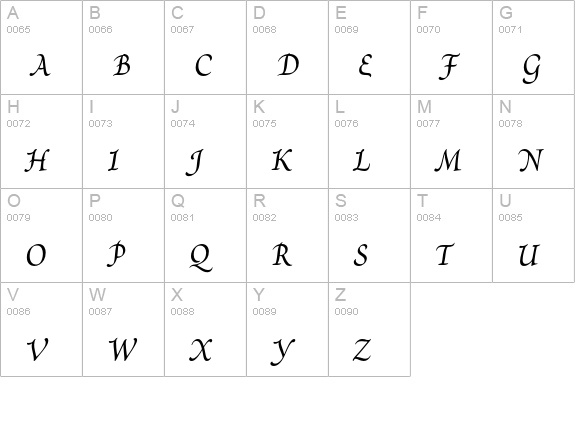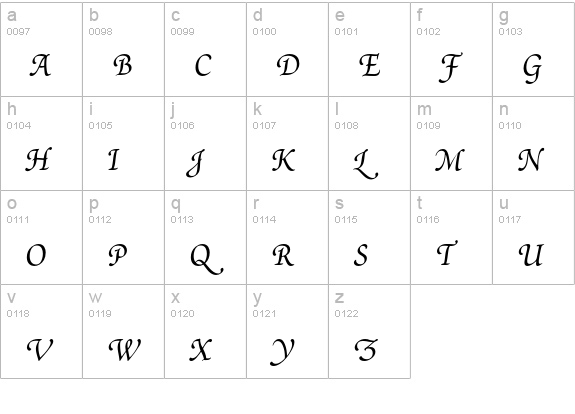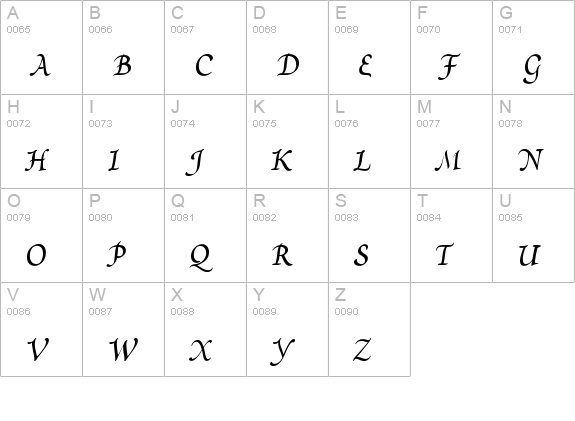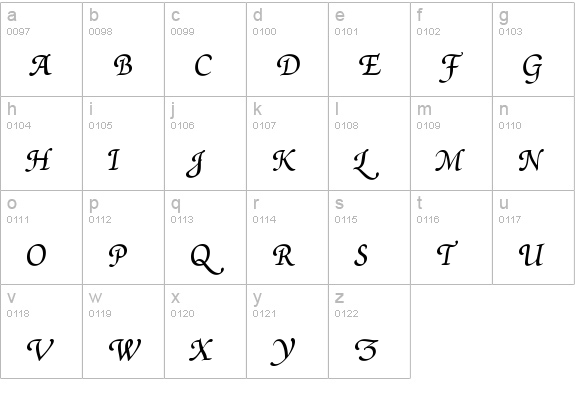
Poetica Supp Swash Capitals I Font Details
Poetica Supp Swash Capitals I font is a captivating and elegant typeface that exudes sophistication and charm. With its intricate swash capitals and delicate curves, this font is perfect for adding a touch of luxury to any design project. Whether you're creating wedding invitations, branding materials, or editorial layouts, Poetica Supp Swash Capitals I font will elevate your work to new heights. What sets this font apart is its unique blend of classic elegance and modern flair. The swash capitals add a sense of whimsy and playfulness, while the overall design maintains a sense of refinement and grace. This versatile font can be used for a variety of purposes, from headline text to decorative accents. Best of all, Poetica Supp Swash Capitals I font is available for free download at FontsMarket.com. This means you can easily access this stunning typeface without any cost, making it a valuable addition to your font library. Don't miss out on the opportunity to enhance your designs with the beauty and sophistication of Poetica Supp Swash Capitals I font.